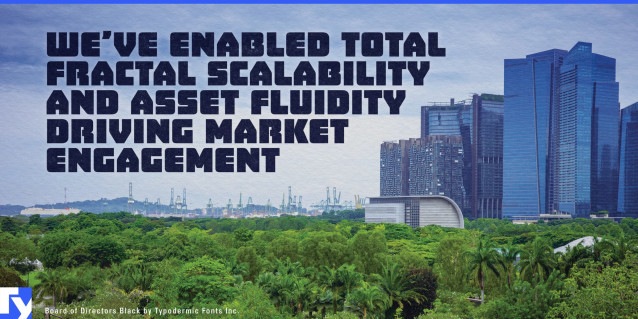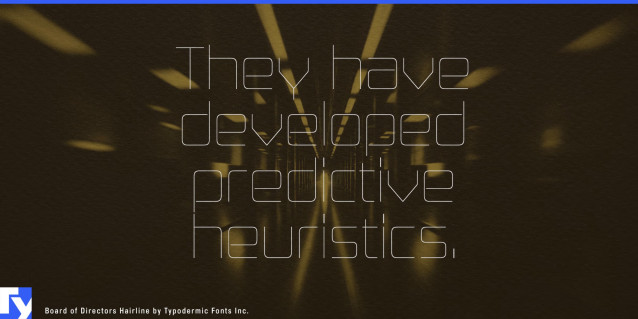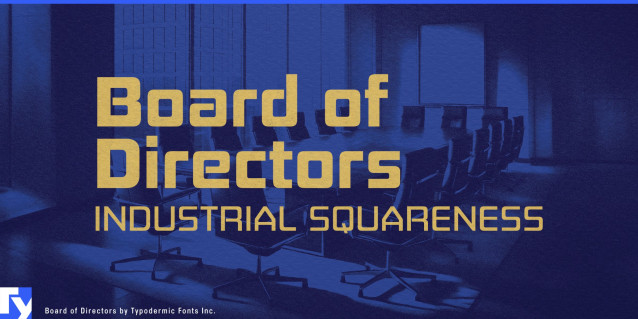
Board of Directors Font
Board of Directors draws its character from the sharp geometry of 1970s hi-tech logos and the clean efficiency of early dot-matrix and plotter type. Designed with a large x-height and precisely curved strokes, it delivers clarity even at smaller sizes — unusual for a display face with such a square, industrial build.
Seven weights with matching italics give you range, from understated captions to commanding headlines. Details like the flat-sided “A” with a peaked top, or the softened diagonals on “K” and “X,” keep the letterforms working smoothly together while preserving their technical edge.
Board of Directors is well-suited for corporate branding, industrial design, and tech-forward editorial layouts. It supports an extensive range of Latin-based European languages, making it a dependable choice for projects that need to speak clearly across borders. Whether in a product launch deck or a long-term identity system, Board of Directors brings structure, consistency, and a distinctly engineered tone to your typography.